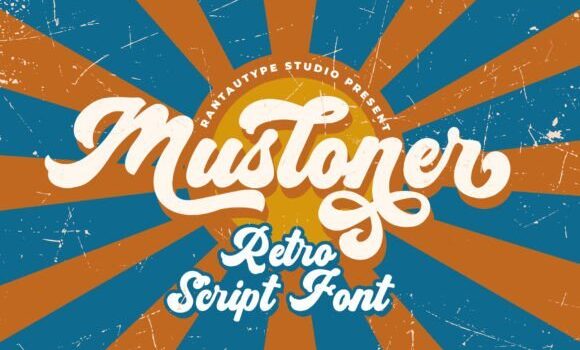
musloner
Musloner Font – Free Download Introduction to Musloner Font Musloner is a retro bold script font inspire by posters or movies in the 60s, 70s, 80s. 📸 Preview Gallery 6 images 📌 Product Name Musloner Font 👤 Author RantauType 📂